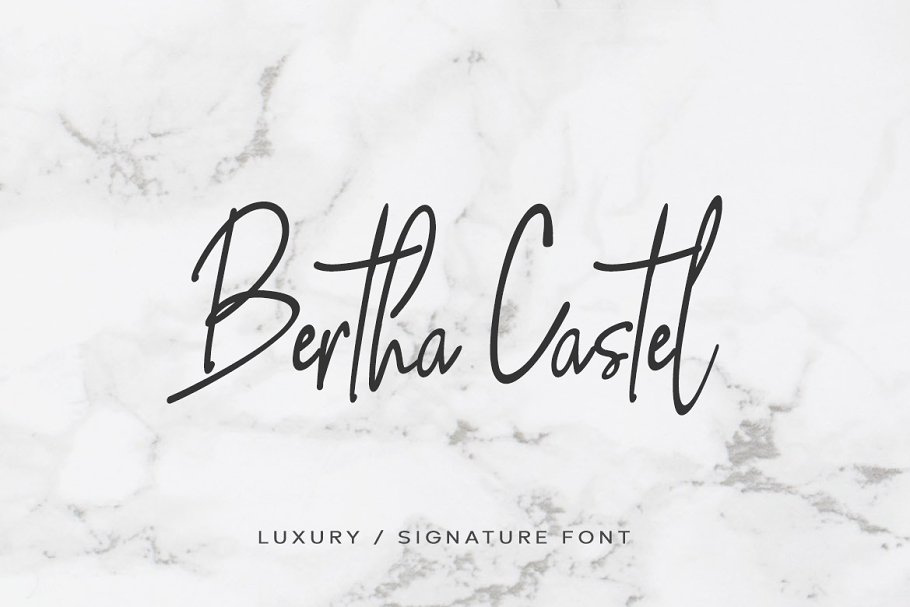
Bertha Castel Font
Bertha Castel Font is perfect for medieval castle tours, historical reenactment events, gothic-themed restaurants, fantasy gaming materials, period drama productions, and heritage museum branding. Its majestic character makes it ideal for medieval festivals, ancient history publications, gothic architecture firms, fantasy book covers, historical documentary titles, and any project requiring regal grandeur with medieval authenticity and castle-inspired sophistication.
This font is exciting because it transports audiences to the magnificent era of medieval castles and royal courts while delivering modern functionality for contemporary historical communications. The powerfully crafted letterforms evoke images of stone fortresses, royal proclamations, and the timeless majesty of medieval architecture, creating powerful emotional connections that resonate with audiences fascinated by history, fantasy, and the enduring appeal of medieval romance.
The Bertha Castel Font family typically includes Regular, Bold, and ornamental variations with medieval flourishes, castle-inspired decorative elements, and regal ornaments that enhance its majestic personality. This comprehensive collection enables designers to create authoritative brand systems that maintain historical authenticity while providing creative flexibility for various period applications and medieval market positioning strategies.
Whether you're developing identity systems for historical attractions, creating materials for medieval-themed events, or designing packaging for fantasy entertainment products, Bertha Castel Font Free Download delivers the regal authority and medieval charm that connects with history enthusiasts worldwide. Its commanding presence ensures memorable brand recognition across digital platforms and print materials, making it perfect for websites, mobile applications, and historical campaigns that celebrate medieval heritage, royal tradition, and the magnificent legacy of castle architecture with authentic period authenticity and timeless regal appeal.